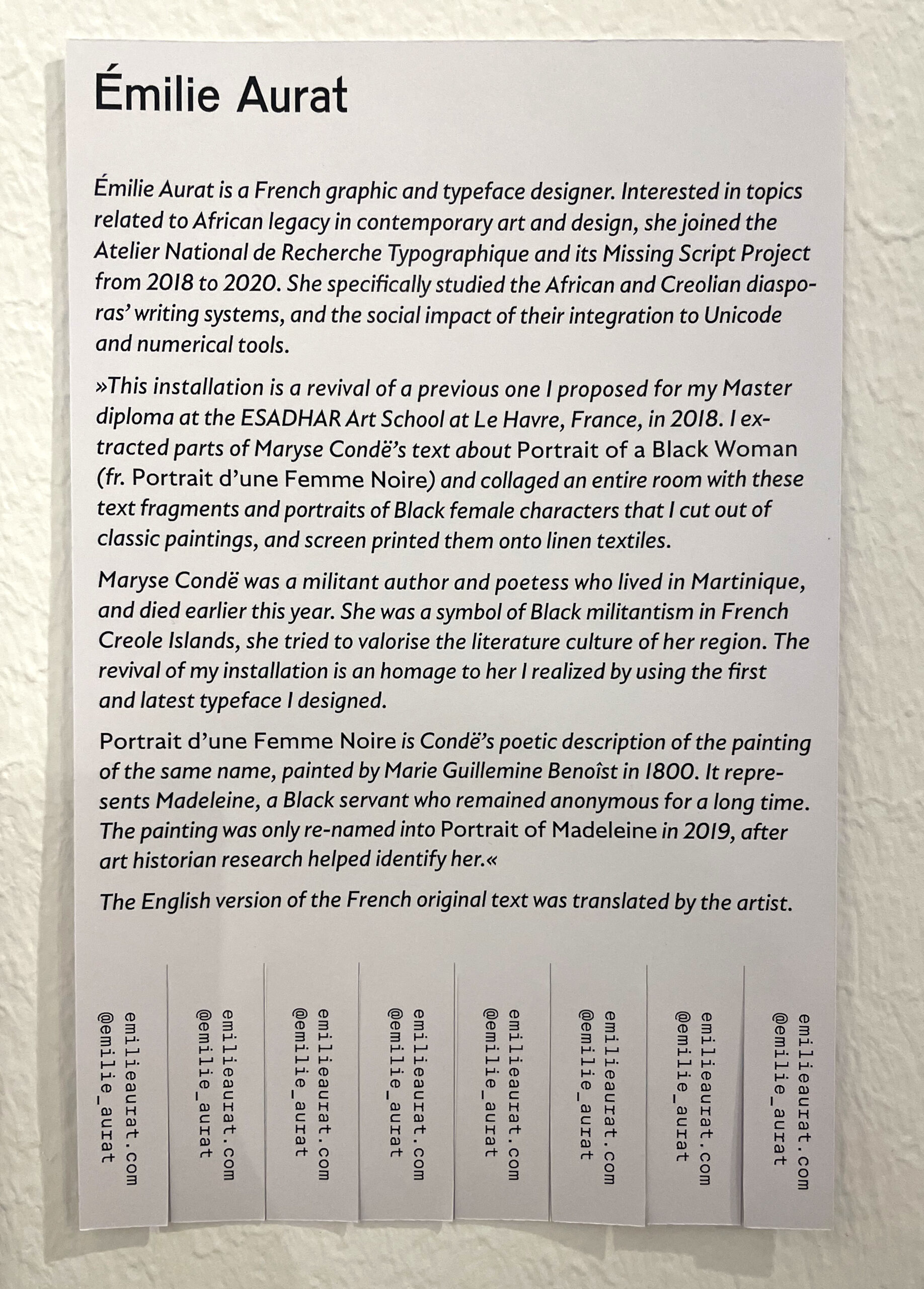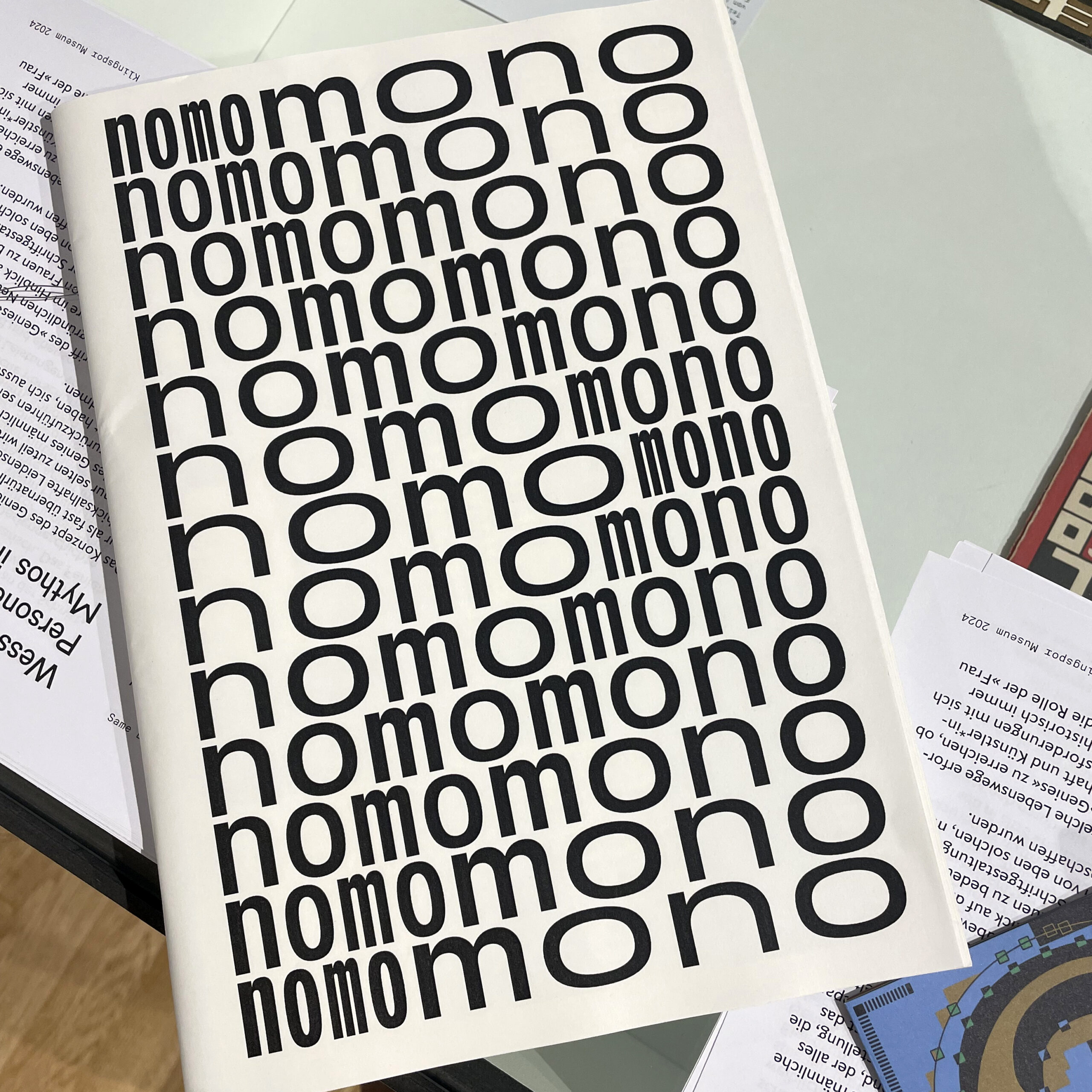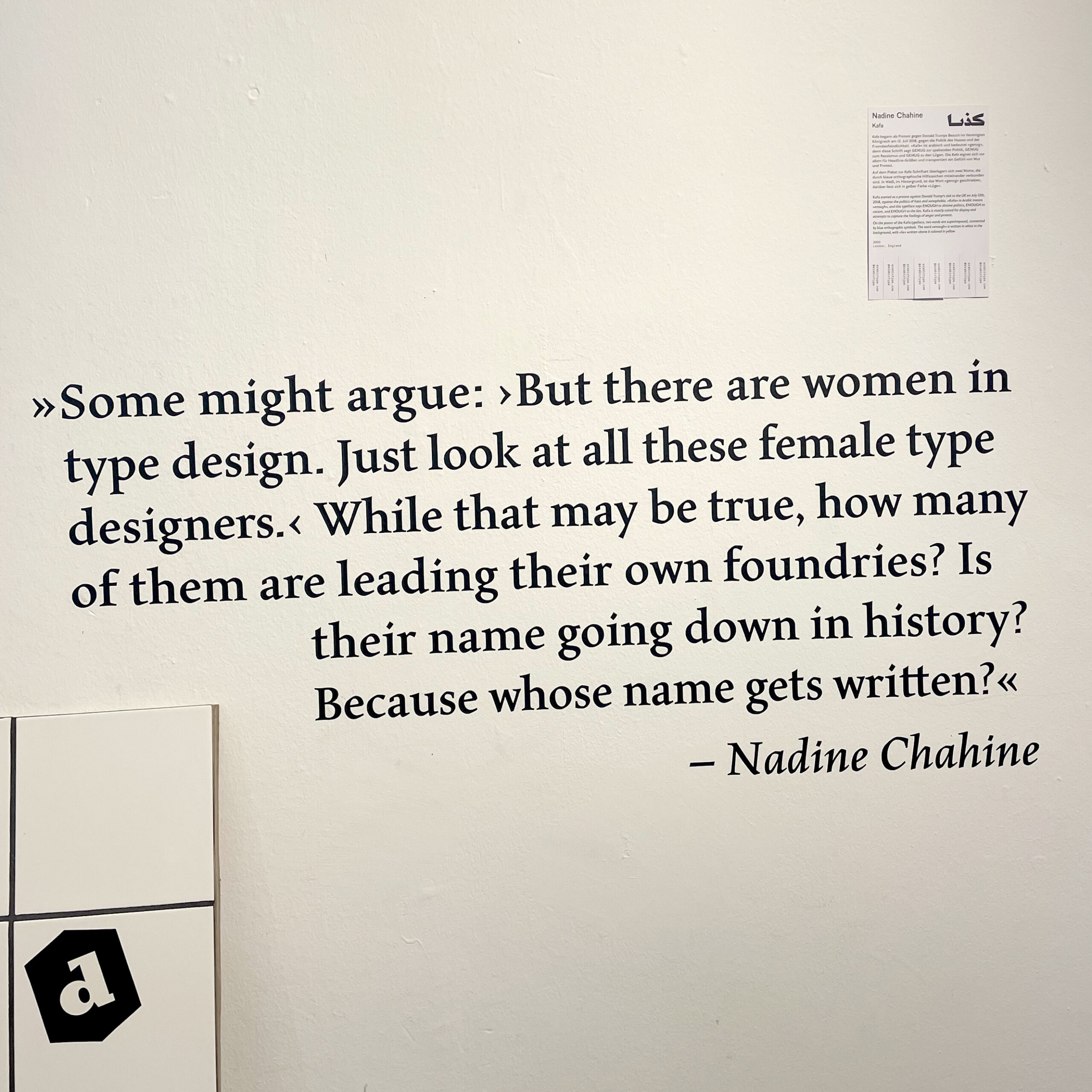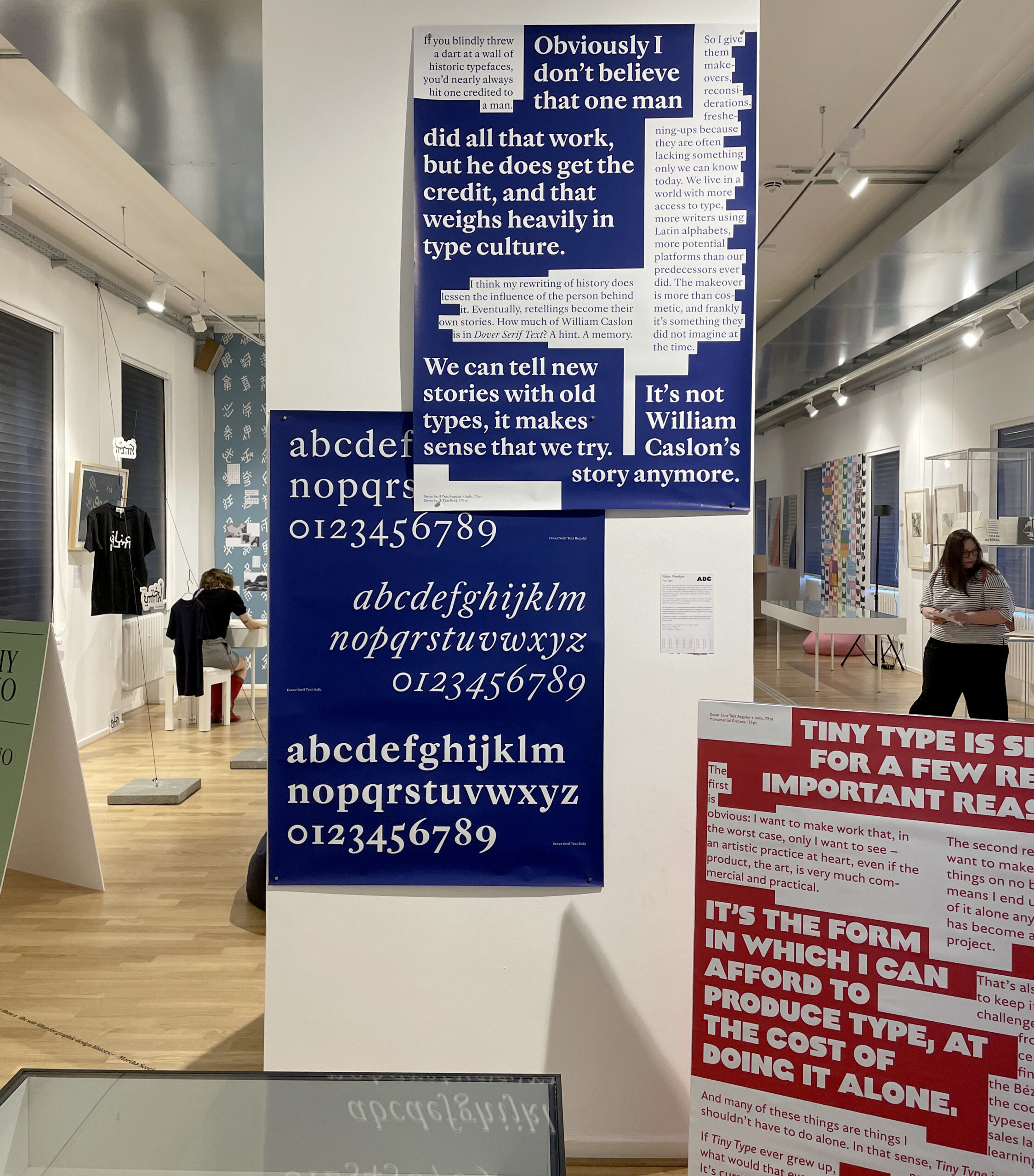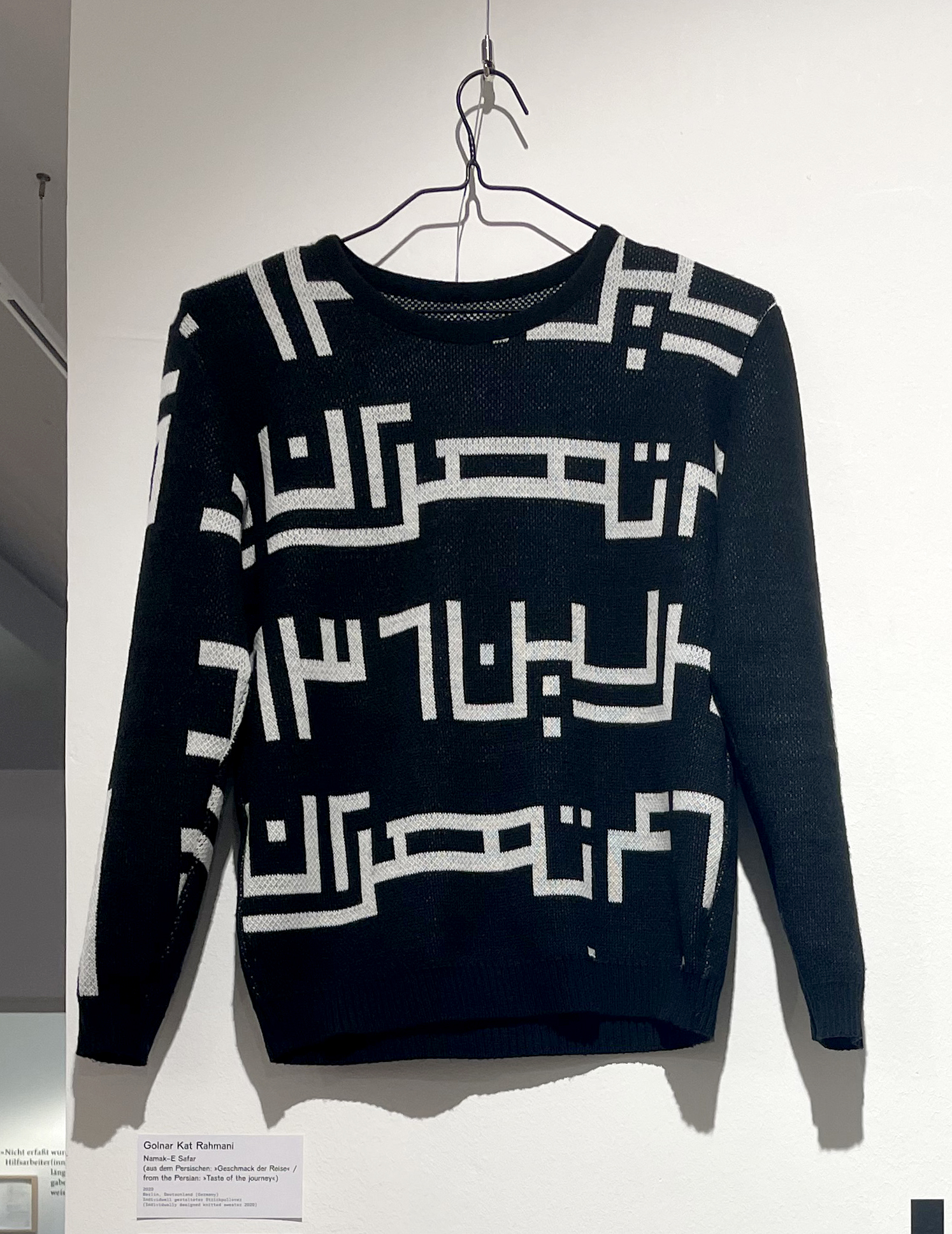
Same Bold Stories? Type Design by Women and Queers in the 20th and 21st Centuries
Exhibition at the Klingspor Museum, Offenbach am Main, Germany
A Quick Intro
In July, I had the chance to attend the opening of Same Bold Stories?, an exhibition that explores the question: Where are women’s voices in type design that complement the existing history?
While conversations about women in type design are becoming more common, exhibitions on this topic are still pretty rare. That’s why it’s so important to acknowledge and appreciate this effort. The exhibition was developed in collaboration with the Klingspor Museum (Dr. Dorothee Ader, Valerij Ledenev, Tatjana Prenzel), design studio Turbo Type (Laura Brunner, Leonie Martin), and the feminist collective +FEM (Kristina Mukhacheva, Naomi Rado). The opening took place on July 19, and I was lucky to be there. The feedback has been very positive, with media describing it in fitting words like “Fat, brave, and cheeky!” (hr2-Kultur Review) and “Arial, Bold, Times New Roman – Queer and Feminine Font Design” (Deutschlandfunk Kultur Interview). The exhibition runs until November, with various events planned. You can check the details here.
The Exhibition and Its Themes
The exhibition showcases type design through a feminist lens, connecting it to modern works by FLINTA* designers (Flinta* is the abbreviation for women, lesbians, inter, non-binary, trans and agender persons, commonly used in German language). It begins with the Klingspor Museum’s collection, featuring pieces from the first half of the 20th century. A few women from this period gained recognition, such as Anna Simons, Erika Giovanna Klien, and Gudrun Zapf-von Hesse. Other designers like Elizabeth Friedländer, Ilse Schüle, Anna Maria Schildbach, and Maria Ballé, as well as students of Rudolf von Larisch (Vienna) and Rudolf Koch (Offenbach), are highlighted for the first time. The exhibit’s historical and modern perspectives are interwoven, presenting a “messy history.” It doesn’t aim to be comprehensive but sheds light on different stories, offering a fresh interpretation of type design history. You’ll find themes like activism, education, gender, and more.
The exhibit also emphasizes collective work, with solidarity-based distribution systems coexisting with traditional type foundries. Sometimes, the lines between craft and art blur, sparking new ideas about type design in the 21st century. For example, I discovered *flint*ype*, a project that acts as both a tool and archive to make FLINTA* designers’ typefaces more accessible. It’s an ongoing project that started in 2022, led by Lilot Kammermeier, Sophia Krayc, Coco Lobinger, and Hannah Witte, with tech support from Laila Kamil.
The exhibit features designers working in experimental fields, like Émilie Aurat, with her installation “Portrait d’une Femme Noire” and Jin-Hoo Park. Artists like Nat Pyper, who calls herself an “alphabet artist,” are also showcased—her project A Queer Year of Love Letters was a highlight. Activists like Golnar Kat-Rahmani also appear, with her project Namal-E Safar displaying knitted sweaters with distances (in kilometers) to different locations. This fits in with the exhibit’s broader theme of cultural interaction, like the Across Borders project. Alphabettes was also represented with the display of Victoria Rushton’s 2015 article, “Type and Gender Stereotypes”.
I was personally involved through a joint interview with Nadine Chahine (conducted by Naomi Rado, available in the publication), a video survey that’s displayed at the exhibition, and the use of my typeface Sisters in both the exhibit and the publication. It was such a thrill to see my work displayed prominently at the entrance.
The Exhibition Design
Walking through the exhibition feels a bit like flipping through a type specimen book. You’ll see real type specimens from both the museum’s collections and young designers, like Lea Johanna Becker’s Nomomono typeface, which I loved. There are panels with questions for viewers, quotes from designers about the gender gap, balancing work and motherhood, and even some physical pieces, like a fridge from the ’80s, pins from Darden Studio, and a striking neon sign by Turbo Type that reads “Suck my p**** Patriarchy.”
A recurring element in the exhibition is the use of comic-style speech bubbles, which show statistical data about the lack of women in graphic design and typography. One cool feature is that each typeface on display is accompanied by a “card” describing it and offering the designer’s contact details. You can tear off the tags and take them with you—another way the curatorial team encourages connecting with others and shows their appreciation for the designers’ work.
There’s also a library with specialized publications where you can dive deeper into the exhibition’s themes.
The Publication
The 240-page bilingual publication (German-English) is thoughtfully designed by Leonie Martin of turbo type, together with Masha Egorova, using a range of typefaces designed by women and queers. It includes only images of people directly involved in the publication process. There is no exhibition image to avoid confusion with an exhibition catalogue (which it’s not—it’s more of a theoretical companion).
For a long time, type design history has been told from a male, cis-gendered perspective, but as you can see, that is changing in bold ways.